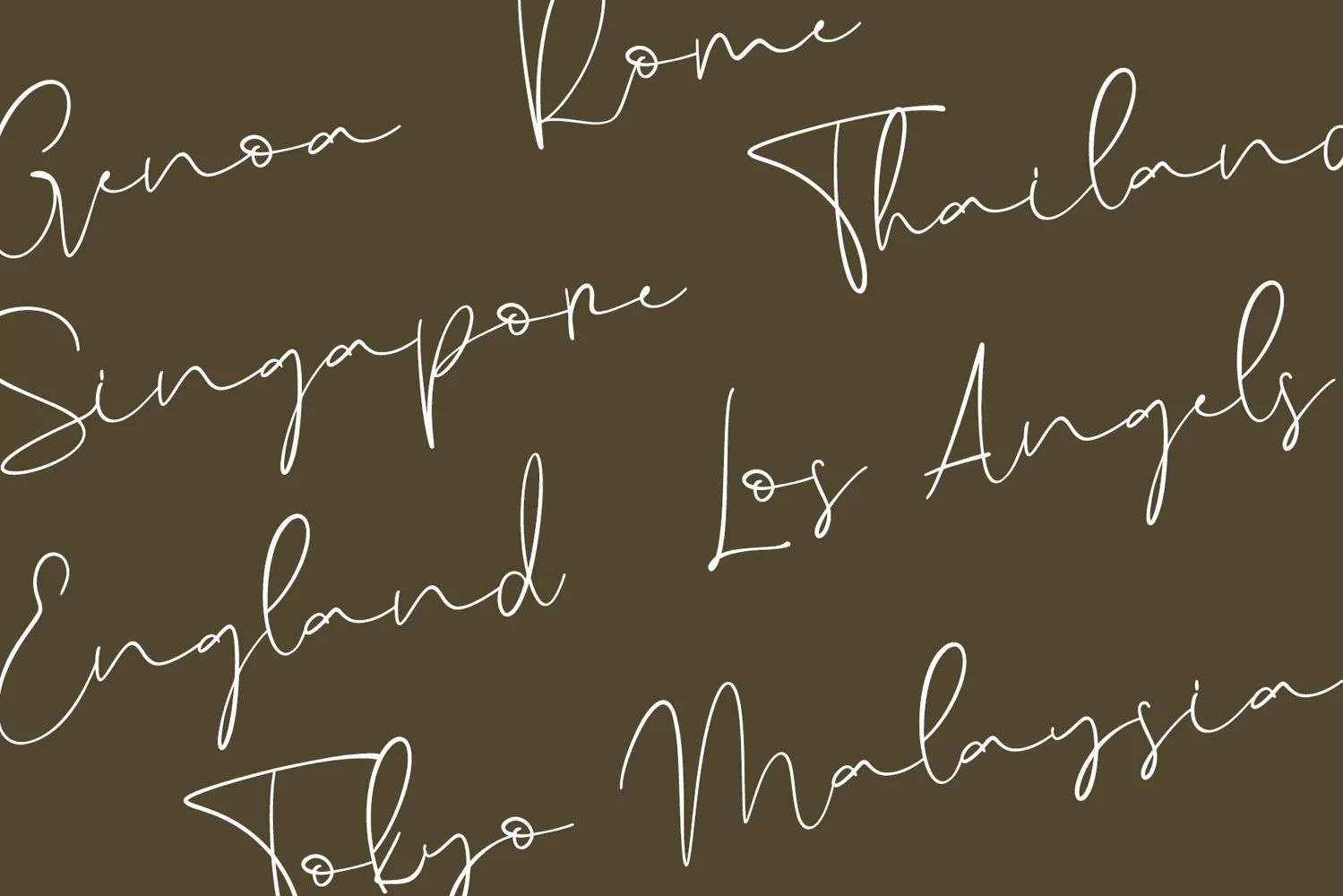
Good Saddin is an exquisite handwritten font, masterfully designed to become a true favorite. It maintains its classy calligraphic influences while feeling contemporary and fresh.
Good Saddin